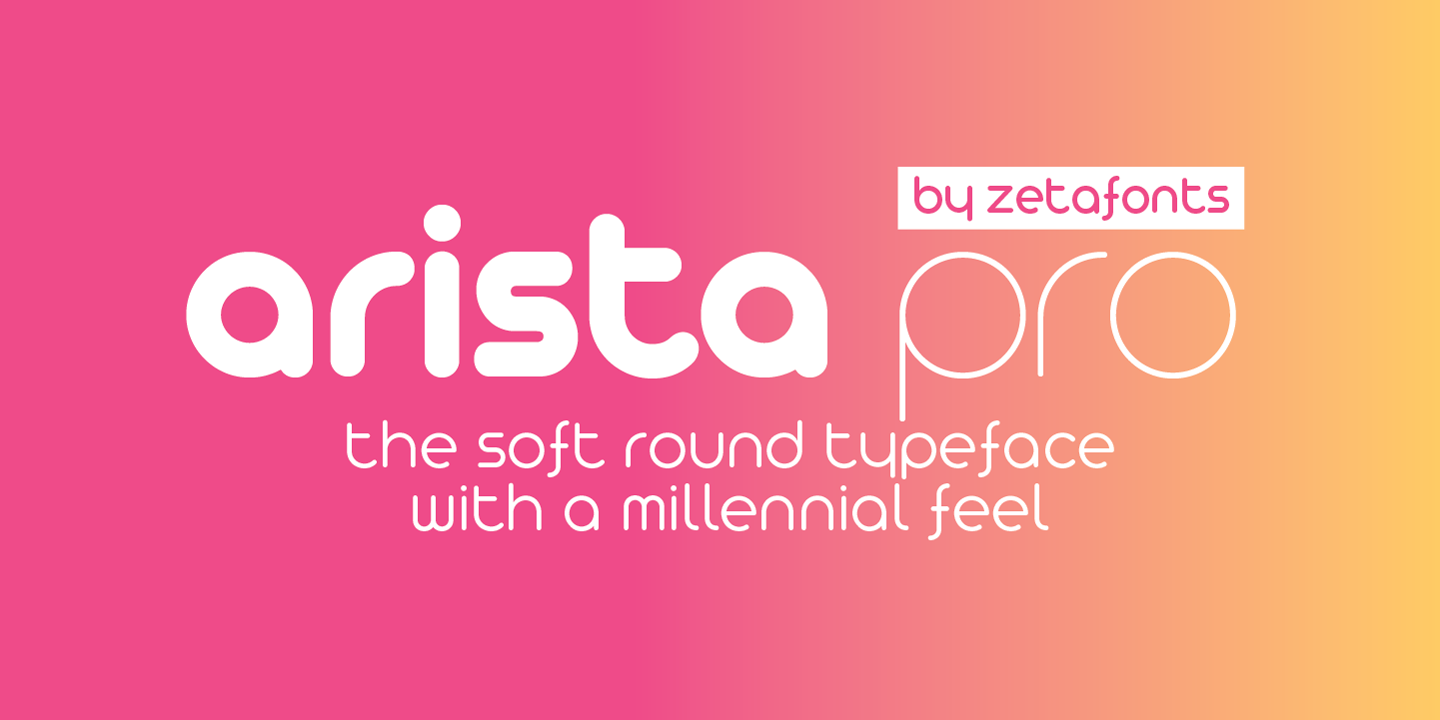
This professional sans-serif typeface is perfect for corporate identity, financial reports, medical documentation, legal documents, business presentations, annual reports, pharmaceutical branding, healthcare systems, and executive communications.
Arista Pro Font brings excitement to your design projects with its exceptional professionalism and unmatched reliability. This premium sans-serif font features precisely engineered letterforms that convey authority and trustworthiness, making it ideal for industries where credibility is paramount. The font's clean geometry and optimal spacing ensure superior readability in both digital and print environments while maintaining a sophisticated corporate appearance.
The Arista Pro Font family includes thin, light, regular, medium, bold, and black weights, plus their corresponding italic styles. This comprehensive range provides designers with complete typographic control for creating professional brand hierarchies and complex document structures across multiple languages and applications.